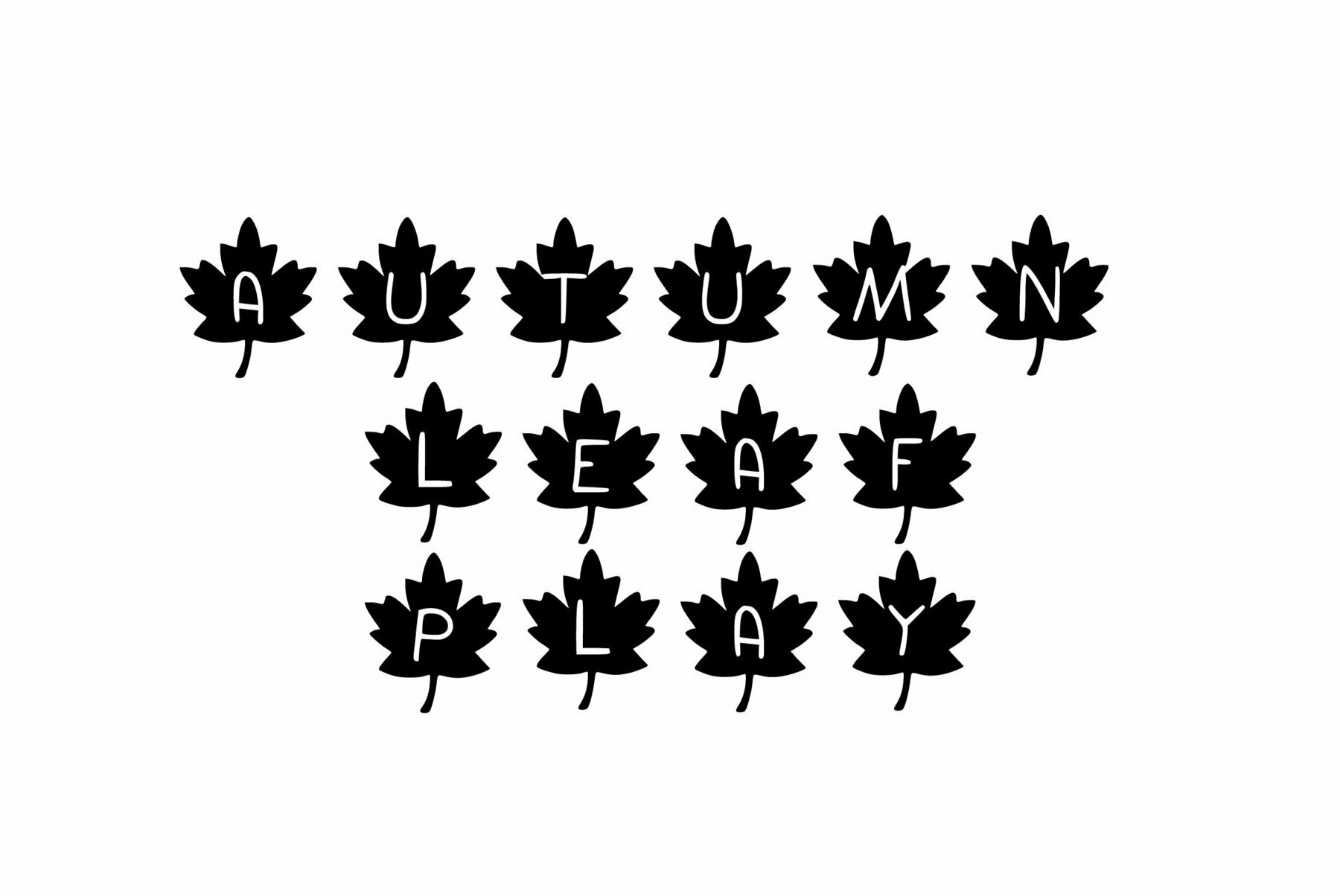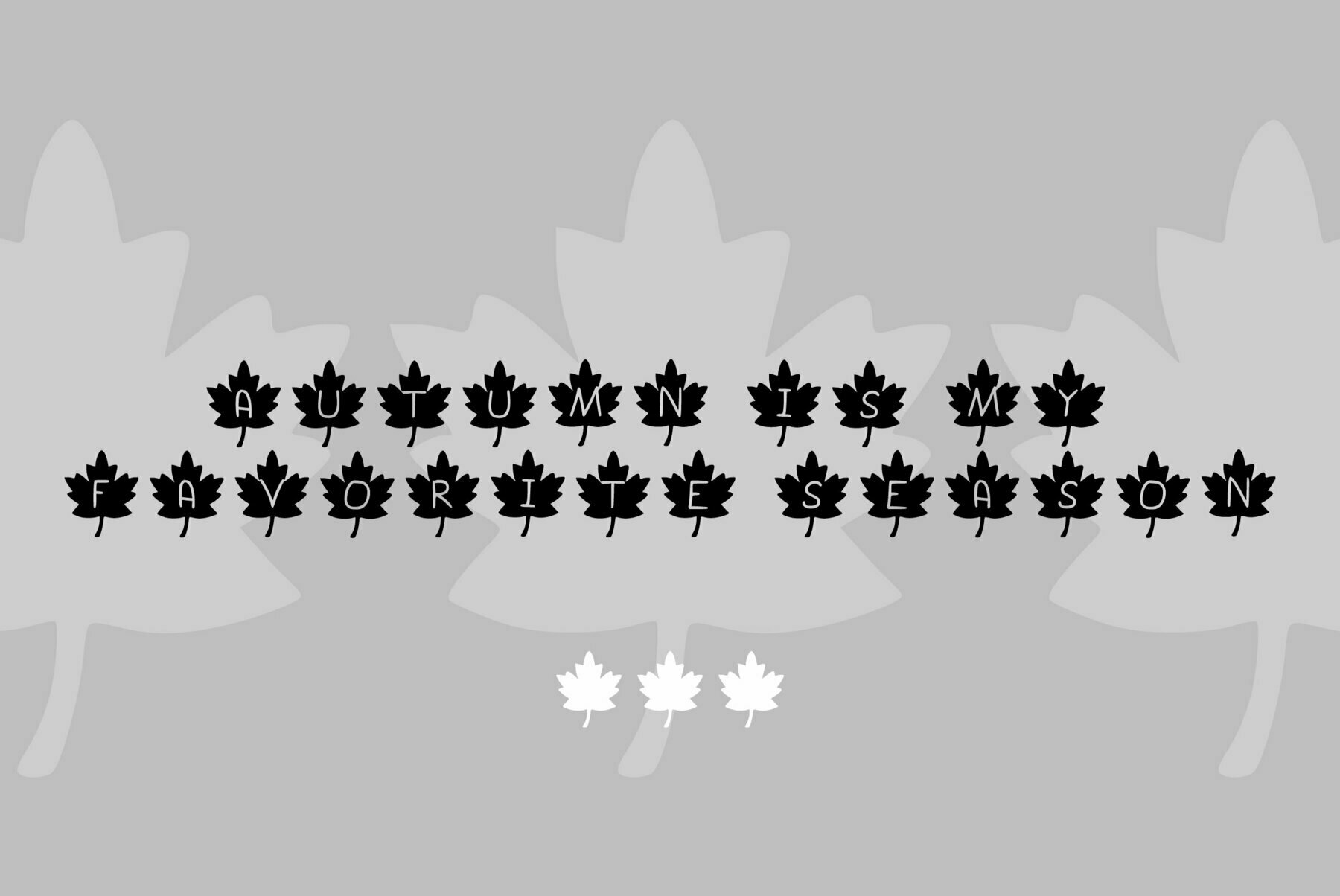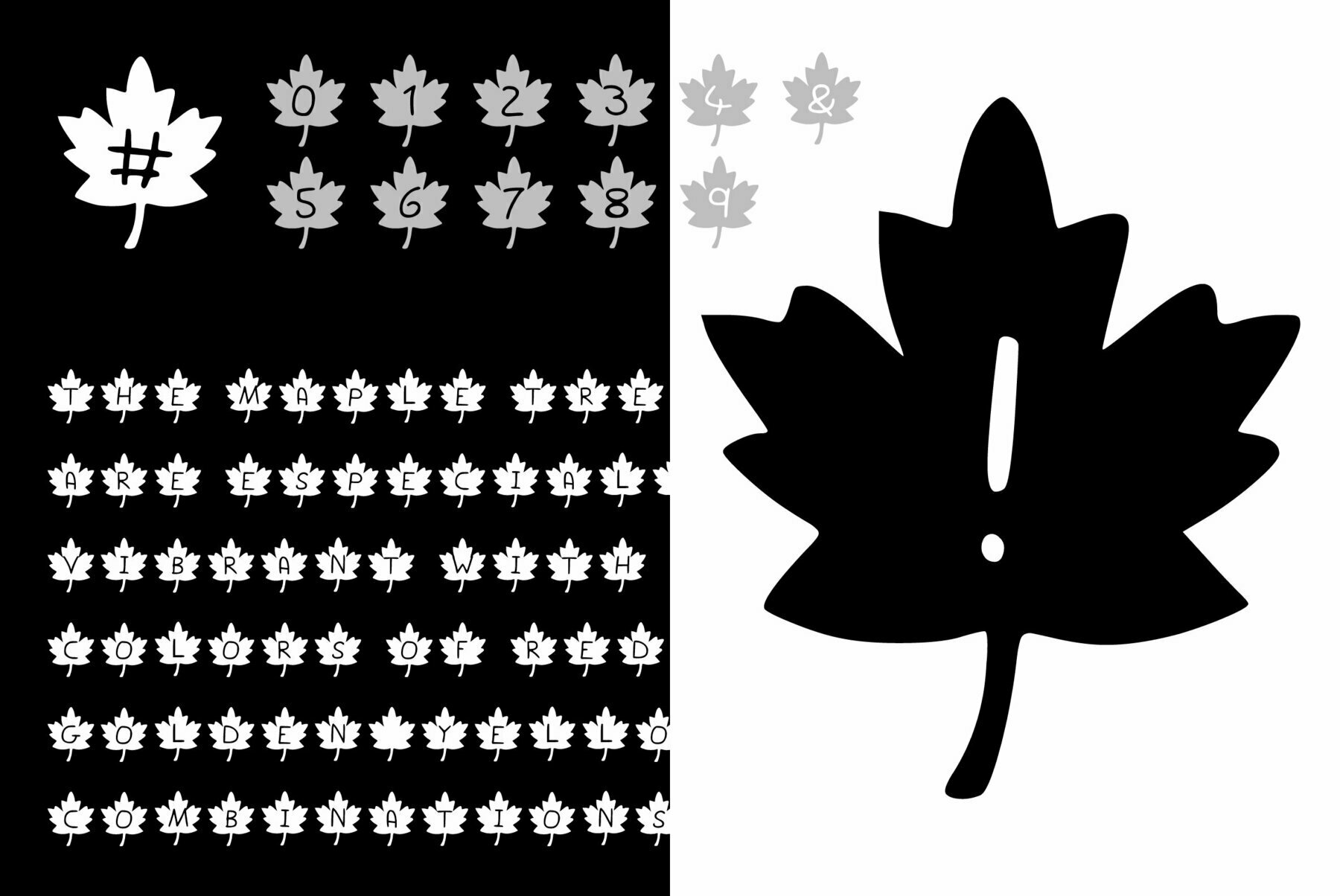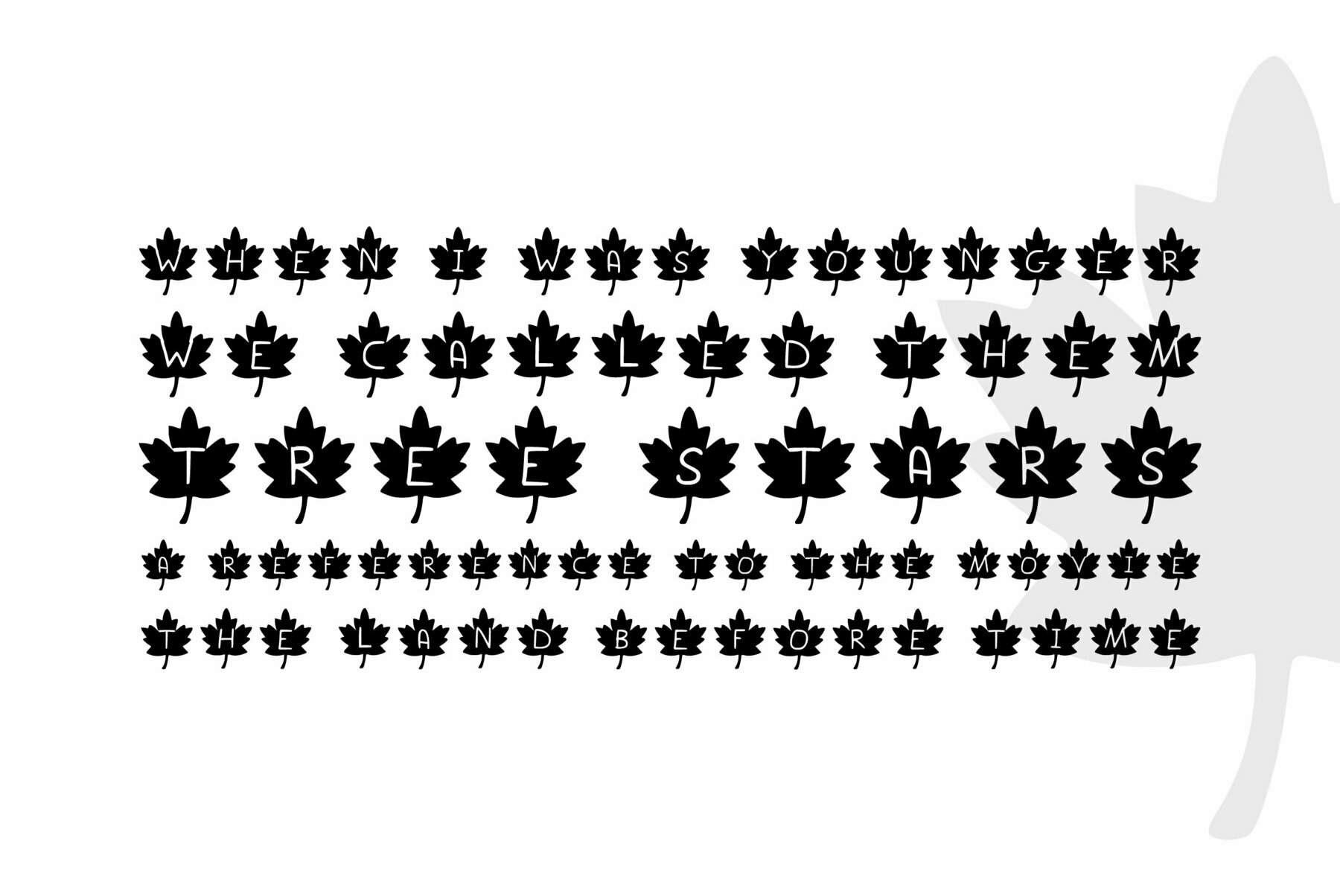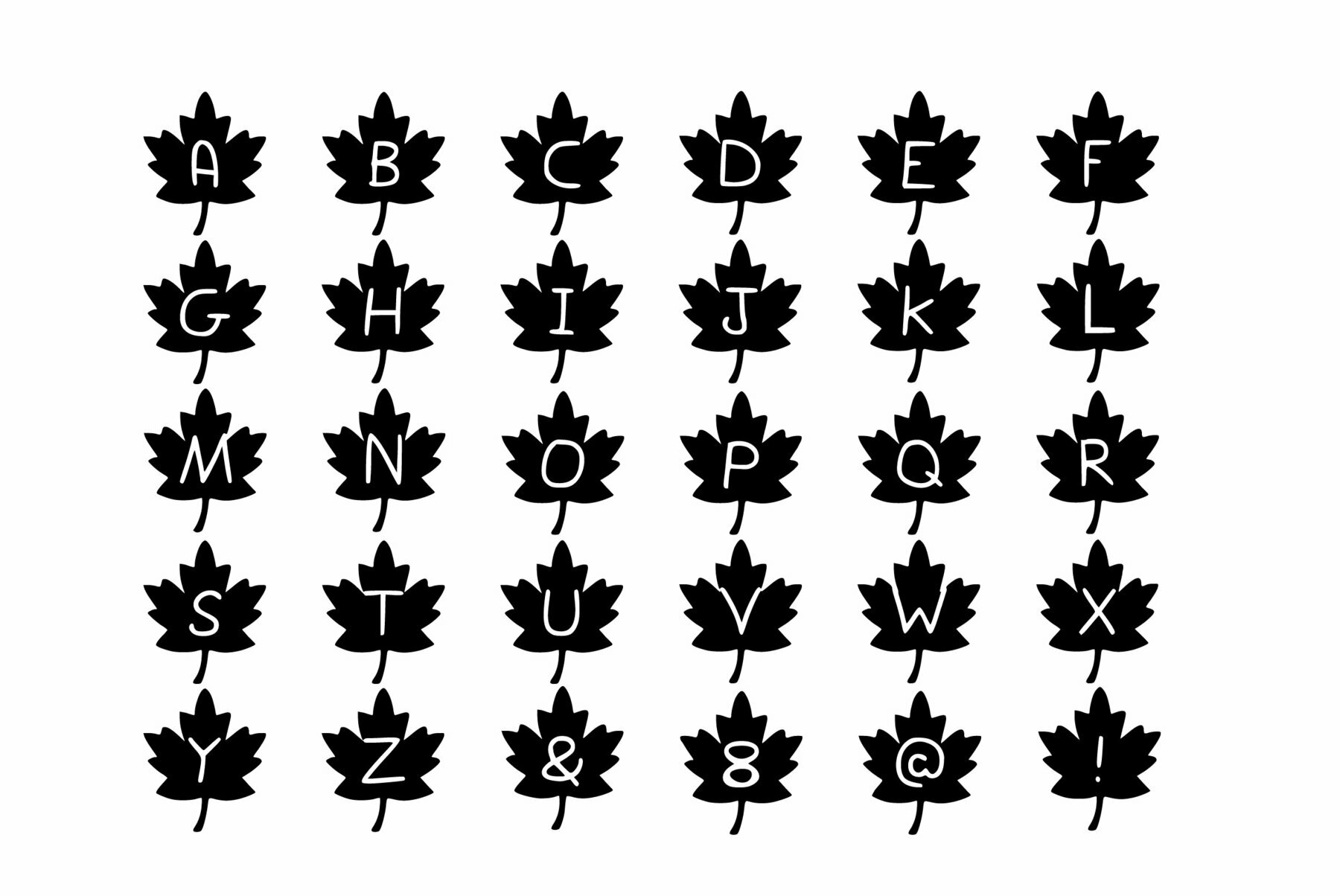
Autumn Leaf Play Font
Autumn Leaf Play
Autumn Leaf Play is a gorgeous decorative font, that matches incredibly well with this time of the year. No matter the topic, this font will be an incredible asset to your fonts’ library, as it has the potential to elevate any creation.